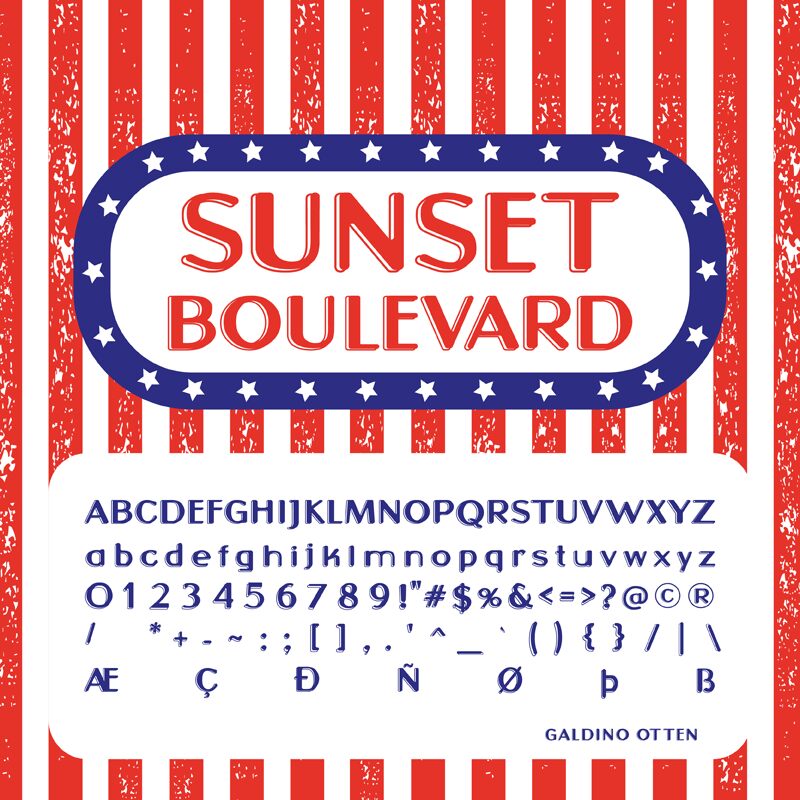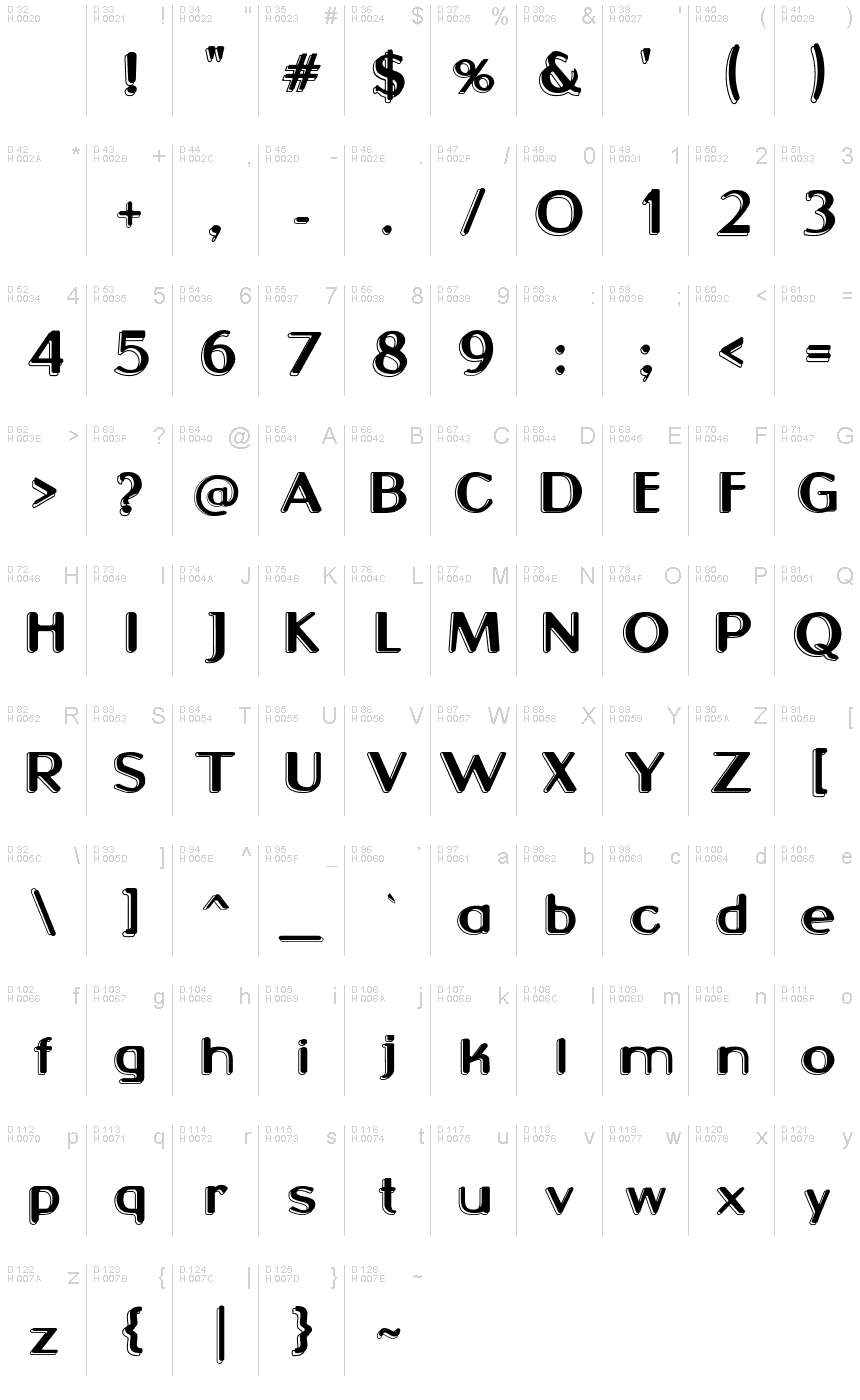
Sunset Boulevard, a captivating display font designed by Galdino Otten Fonts, takes you on a nostalgic journey to the retro era with its mesmerizing 3D style. Its semi-expanded width adds an element of uniqueness to any project it graces.
Perfect for vintage-inspired signage, movie posters, or album covers, this font brings an air of old Hollywood glamour to your designs. Let Sunset Boulevard transport your audience back in time and captivate them with its distinct and alluring charm.